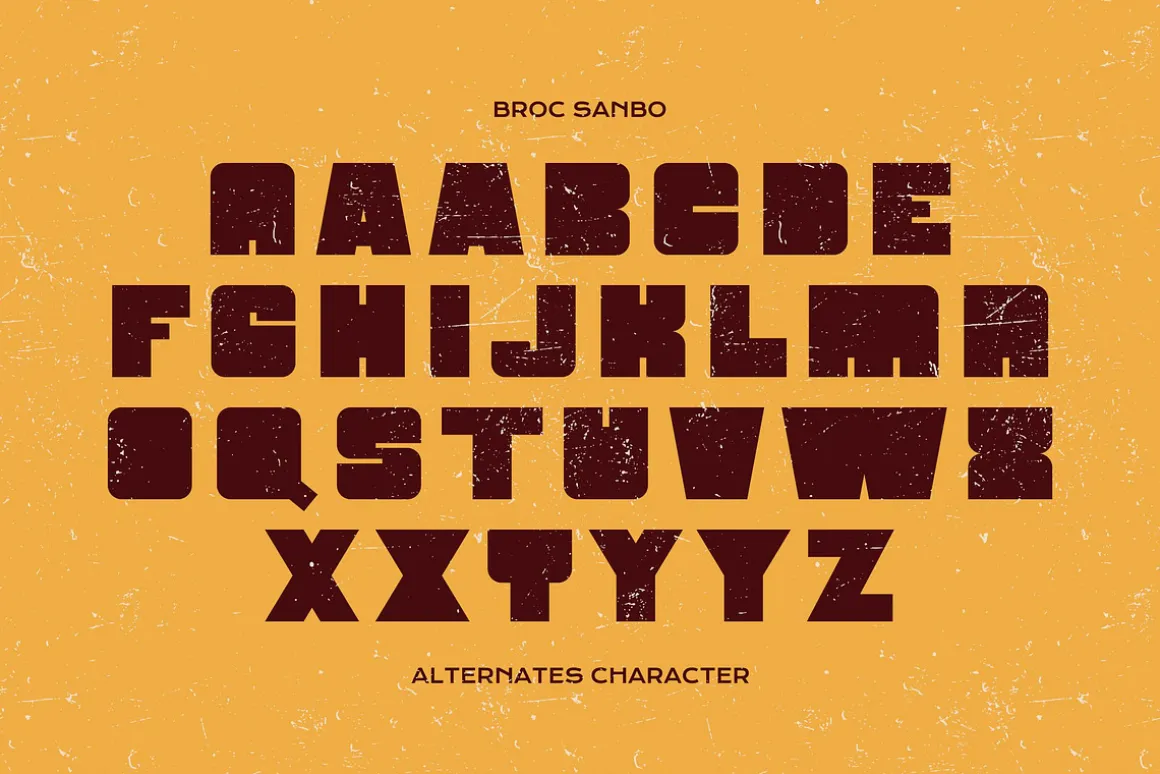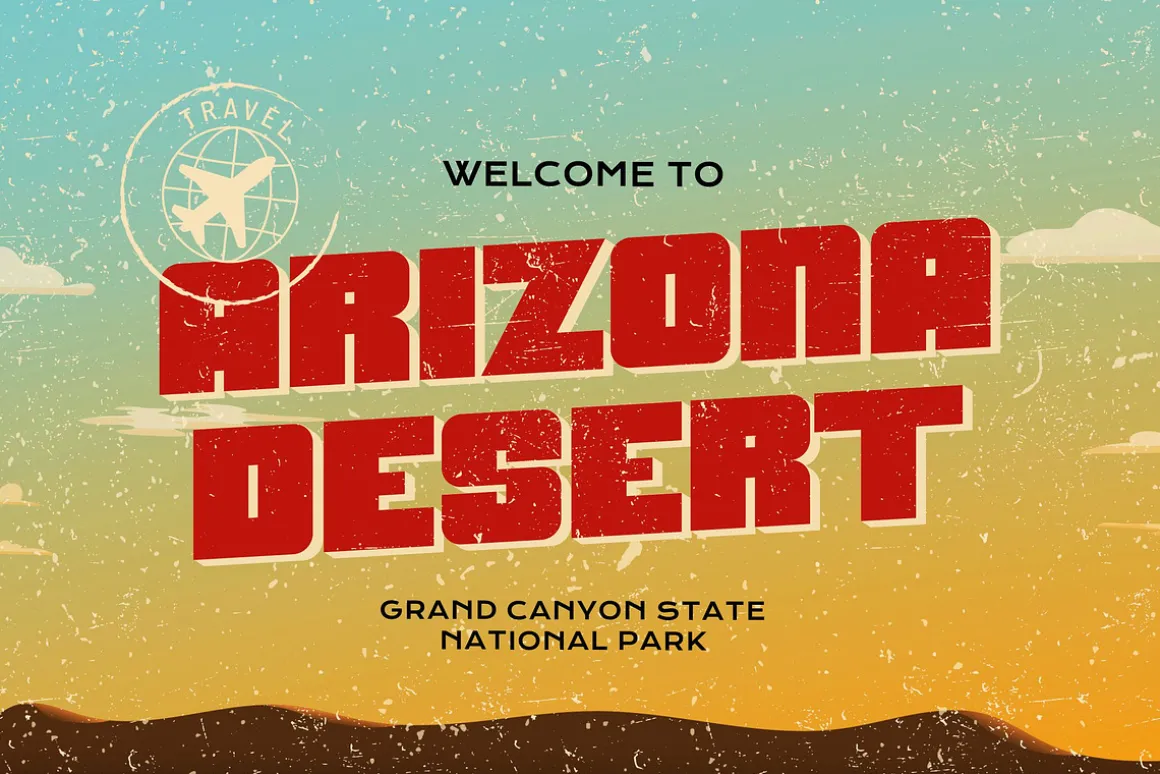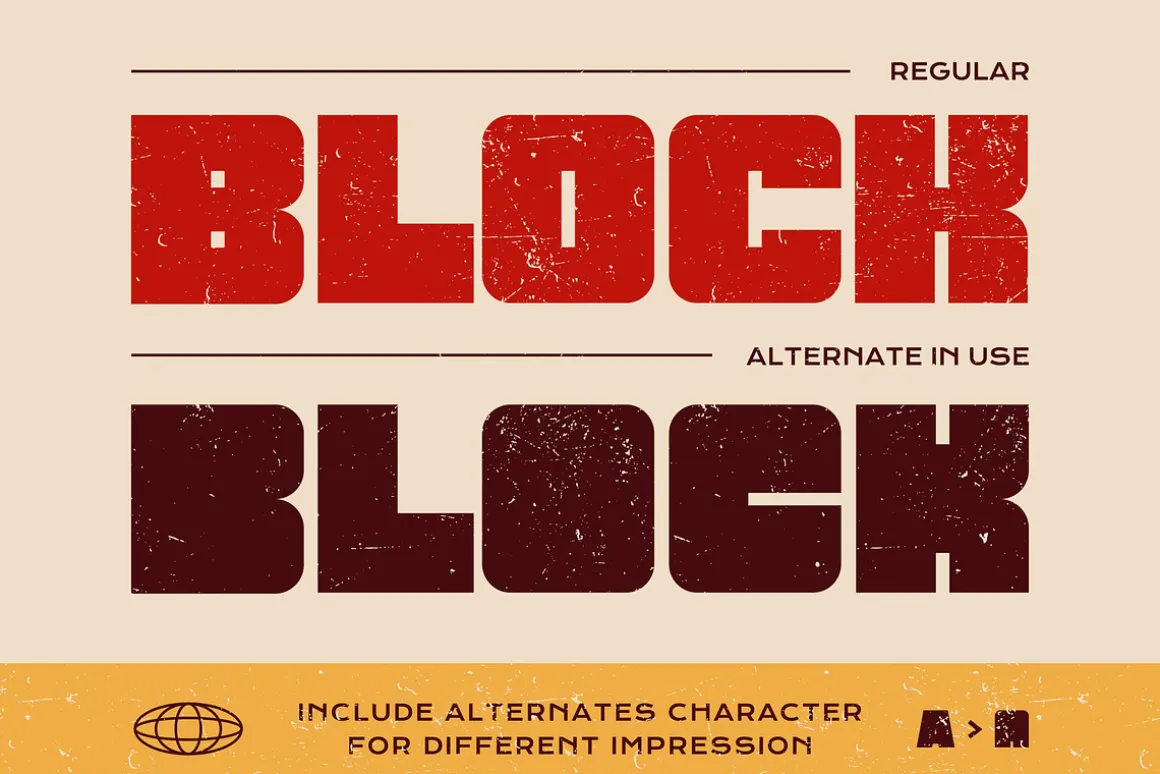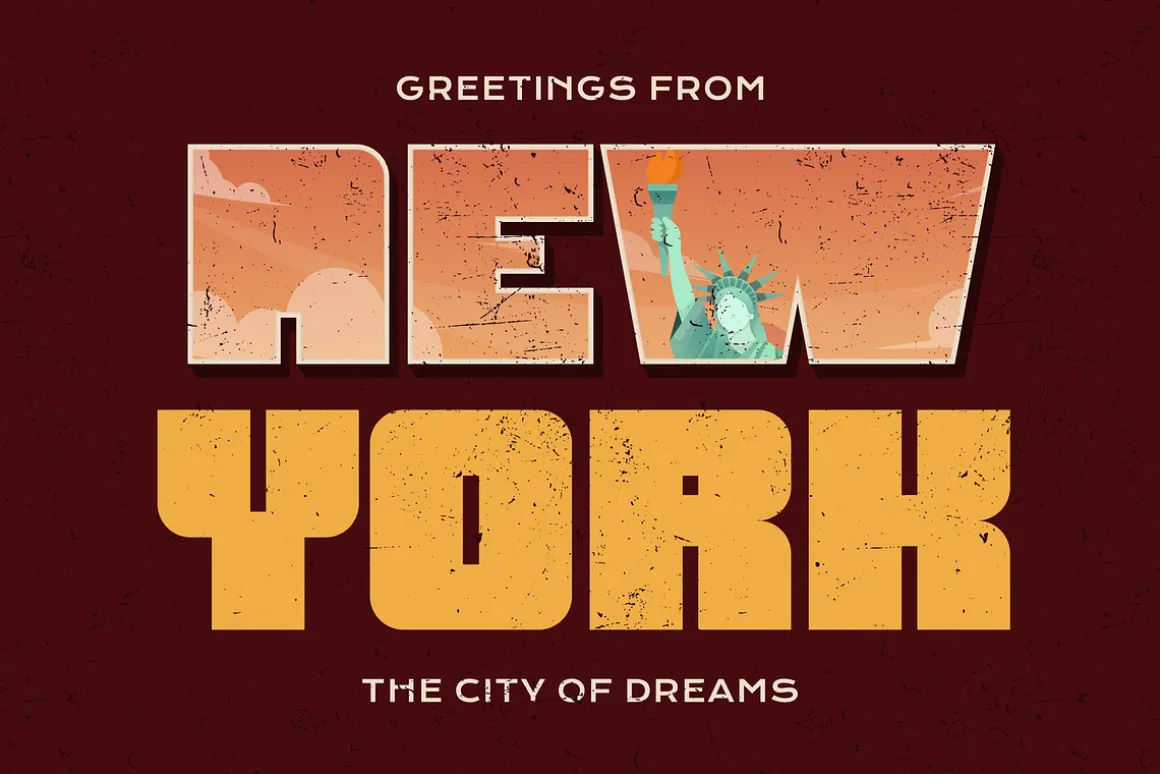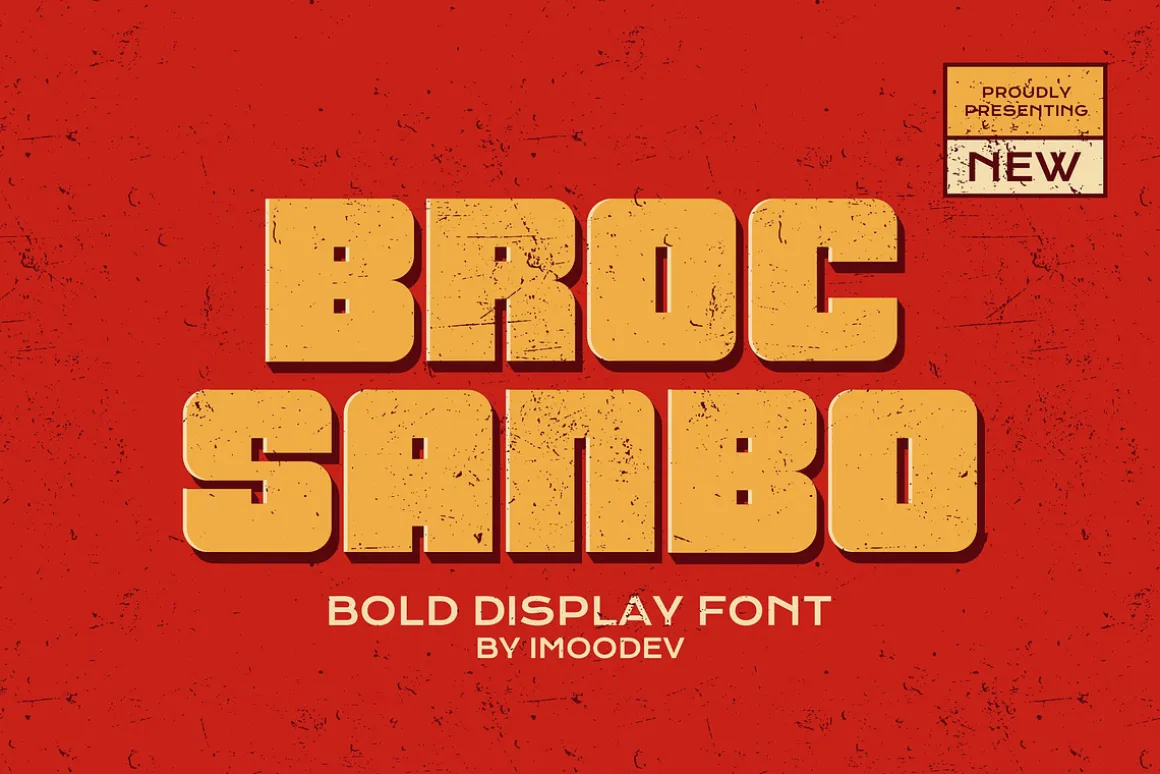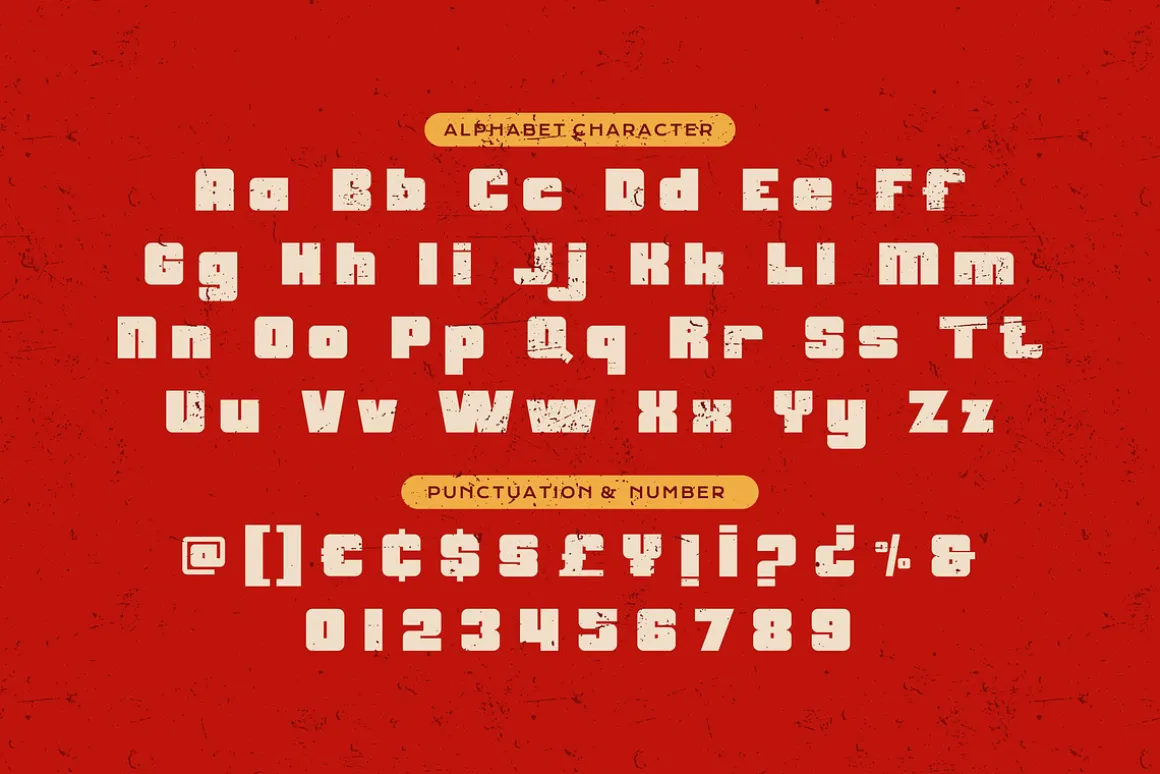
Broc Sanbo is a bold retro display font with thick, block-like letters and tight curves. Each glyph is rendered with extreme weight and square proportions, giving it a retro action movie poster feel combined with a modern streetwear twist.
Perfect for travel posters, sports logos, vintage western titles, trendy urban flyers, BBQ packaging, sports headlines, outdoor signage, bold logos, stickers, and apparel.